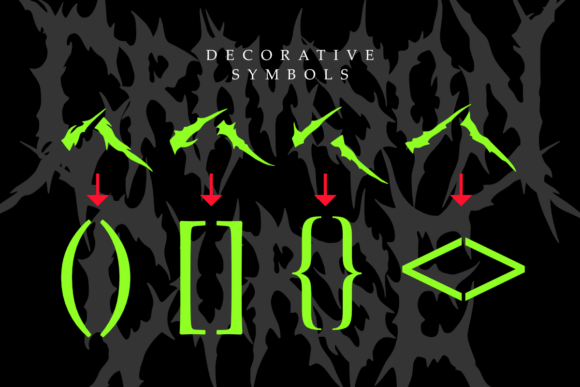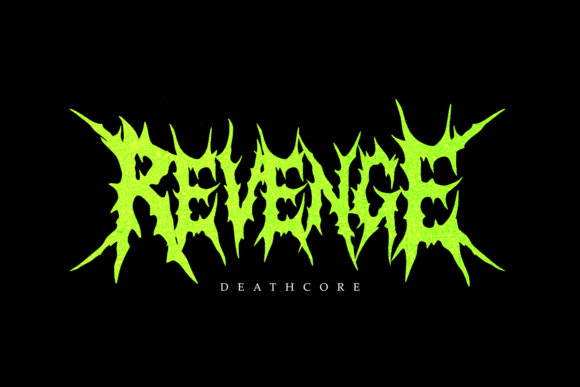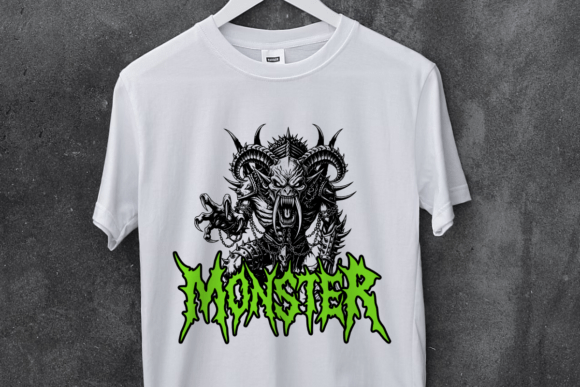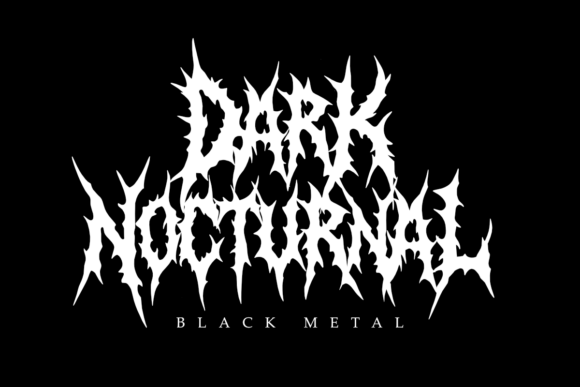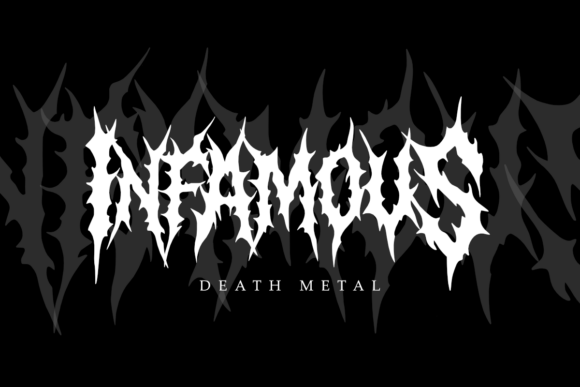
Unleash the Fury: Introducing the Crimson Curse Font
Are you a designer or craft looking for a font that embodies the raw energy and chaos of underground metal music? Look no further than the Crimson Curse Font, a brutally detailed death metal font designed to bring a touch of darkness and aggression to your designs. In this article, we’ll dive into the world of Crimson Curse, exploring its unique features, and how it can elevate your designs to new heights.
The Essence of Crimson Curse
Crimson Curse is more than just a font – it’s an experience. Crafted to capture the chaotic essence of extreme metal music, this display font is perfect for creating bold, eye-catching designs that scream raw power. With its razor-sharp spikes and tangled letterforms, Crimson Curse is the ultimate choice for designers looking to push the boundaries of their work.
Raw, Organic, and Brutally Detailed
One of the standout features of Crimson Curse is its raw, organic feel. Unlike sterile, digital fonts, Crimson Curse has a hand-drawn quality that gives it a gritty authenticity. The natural curves and jagged edges of each letterform create a sense of tension and unease, drawing the viewer in and refusing to let go.
Perfect for Extreme Designs
Crimson Curse is specifically designed for extreme designs – think brutal logos, festival posters, horror visuals, and album covers. The font’s aggressive aesthetic is perfect for bands, musicians, and artists looking to make a statement. Whether you’re creating merchandise, promotional materials, or simply want to add a touch of metal mayhem to your designs, Crimson Curse has got you covered.
Key Features of Crimson Curse
- Razor-sharp spikes and tangled letterforms: Create a bold, aggressive look that’s perfect for extreme designs.
- Raw, organic feel: Hand-drawn quality gives Crimson Curse a gritty authenticity.
- Natural curves and jagged edges: Add a touch of chaos and tension to your designs.
- Perfect for display text: Use Crimson Curse to create eye-catching headlines, logos, and titles.
How to Use Crimson Curse in Your Designs
So, how can you incorporate Crimson Curse into your designs? Here are a few ideas to get you started:
- Band logos and merchandise: Use Crimson Curse to create bold, eye-catching logos and merchandise for extreme bands and musicians.
- Album covers and posters: Add a touch of metal mayhem to your album covers and posters with Crimson Curse.
- Horror visuals and posters: Use Crimson Curse to create eerie, unsettling visuals that will leave viewers on the edge of their seats.
- Festival posters and flyers: Create bold, attention-grabbing posters and flyers for music festivals and events.
| Font Name | Crimson Curse Font |
| Author | Almairatype Studio |
In conclusion, the Crimson Curse Font is a game-changer for designers and crafters looking to add a touch of raw energy and chaos to their designs. With its razor-sharp spikes, tangled letterforms, and raw, organic feel, Crimson Curse is the perfect choice for extreme designs. Whether you’re creating brutal logos, festival posters, or horror visuals, this font delivers unapologetic metal energy that will leave a lasting impression. So why wait? Unleash the fury of Crimson Curse and take your designs to new heights.